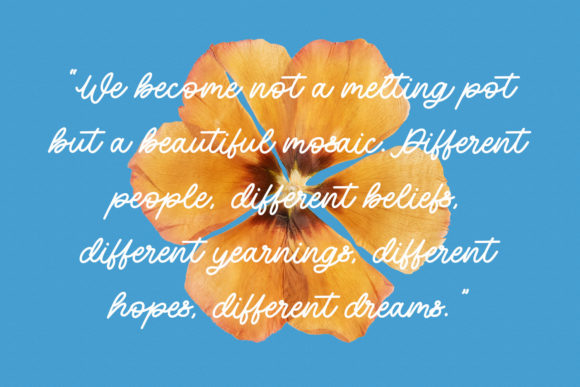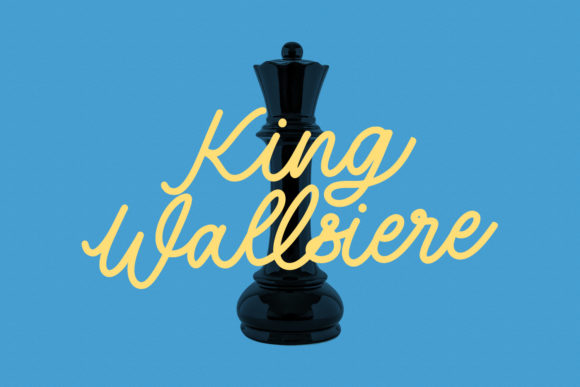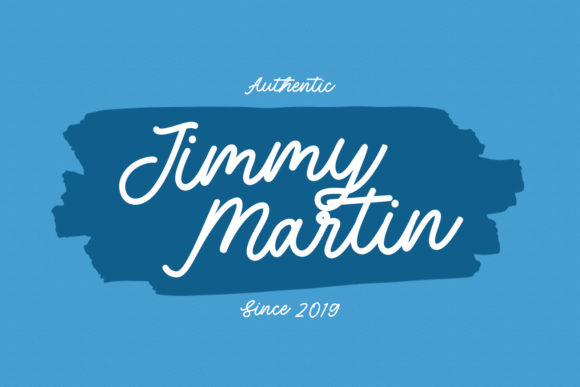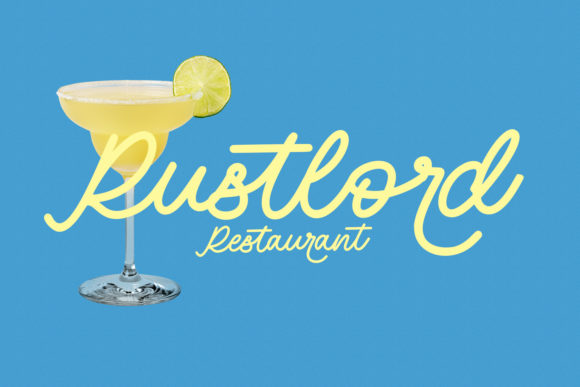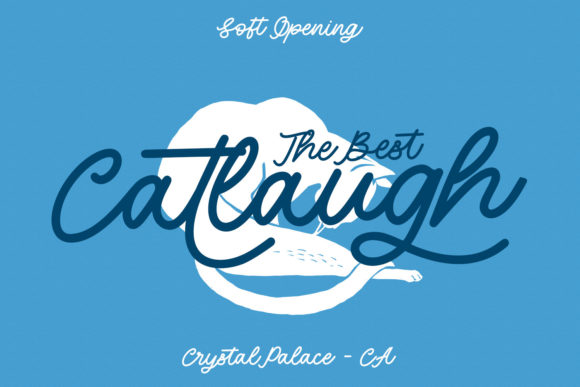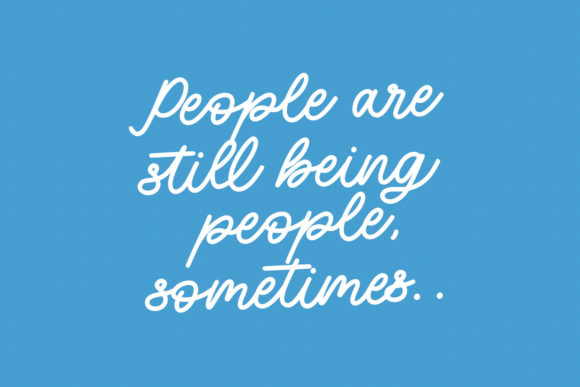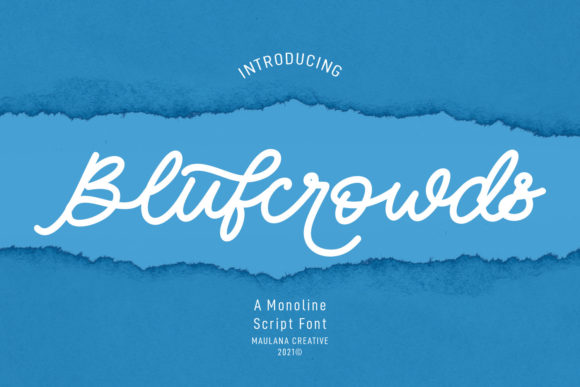
Discover the Charm of Blufcrowds Font: Elevate Your Designs with Elegance
Are you on the lookout for a font that exudes charm and elegance? Look no further than Blufcrowds Font! This stunning typeface has captured the hearts of designers and crafters alike with its ravishing style, making it the perfect choice for creating breathtaking wedding invitations, beautiful stationery art, eye-catching social media posts, and so much more.
The Allure of Blufcrowds Font
Blufcrowds Font is a true gem in the world of typography. Its unique blend of classic and modern elements makes it a versatile choice for a wide range of design projects. Whether you’re looking to create a sophisticated wedding invitation or a bold social media post, Blufcrowds Font is sure to impress. Its elegant lines, precise curves, and flowing strokes make it a joy to work with, and its readability ensures that your message will be conveyed with clarity and style.
What Makes Blufcrowds Font So Special?
- Unique Character: Blufcrowds Font boasts a distinctive character that sets it apart from other fonts. Its blend of classic and modern elements makes it a true standout.
- Elegant and Charming: This font exudes elegance and charm, making it perfect for designs that require a touch of sophistication.
- Versatile: Blufcrowds Font is incredibly versatile, making it suitable for a wide range of design projects, from wedding invitations to social media posts.
- Readability: Despite its elegant lines and flowing strokes, Blufcrowds Font remains highly readable, ensuring that your message will be conveyed with clarity.
Uses for Blufcrowds Font
Blufcrowds Font is a versatile typeface that can be used in a variety of design projects. Here are some ideas to get you started:
- Wedding Invitations: Create stunning wedding invitations that set the tone for a beautiful and elegant wedding.
- Stationery Art: Use Blufcrowds Font to create beautiful stationery art, including letterheads, greeting cards, and more.
- Social Media Posts: Add a touch of elegance to your social media posts with Blufcrowds Font.
- Signage: Use Blufcrowds Font for signage, including event signs, directional signs, and more.
- Packaging: Add a touch of sophistication to your packaging with Blufcrowds Font.
Tips for Working with Blufcrowds Font
Here are some tips for getting the most out of Blufcrowds Font:
- Experiment with Sizes: Blufcrowds Font looks great in a variety of sizes, from large headings to smaller body text.
- Play with Colors: Try pairing Blufcrowds Font with different colors to create a unique and eye-catching design.
- Mix and Match: Don’t be afraid to mix and match Blufcrowds Font with other fonts to create a unique and interesting design.
Blufcrowds Font is a true gem in the world of typography. Its unique blend of classic and modern elements makes it a versatile choice for a wide range of design projects. Whether you’re a designer, crafter, or simply someone who appreciates beautiful typography, Blufcrowds Font is sure to captivate. So why not give it a try and see the magic for yourself?